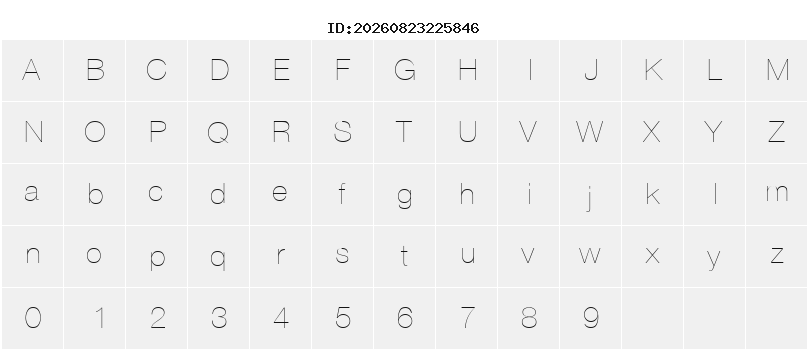
Sans Thin Preview
• Font Name: Sans Thin
• Font Style: Thin
• Full Font Name: Sans Thin Thin
About Sans Thin.ttf
Sans Thin.ttf is a modern, elegant sans-serif font designed for ultimate readability and visual harmony. Perfect for branding, headlines, web design, and print materials.